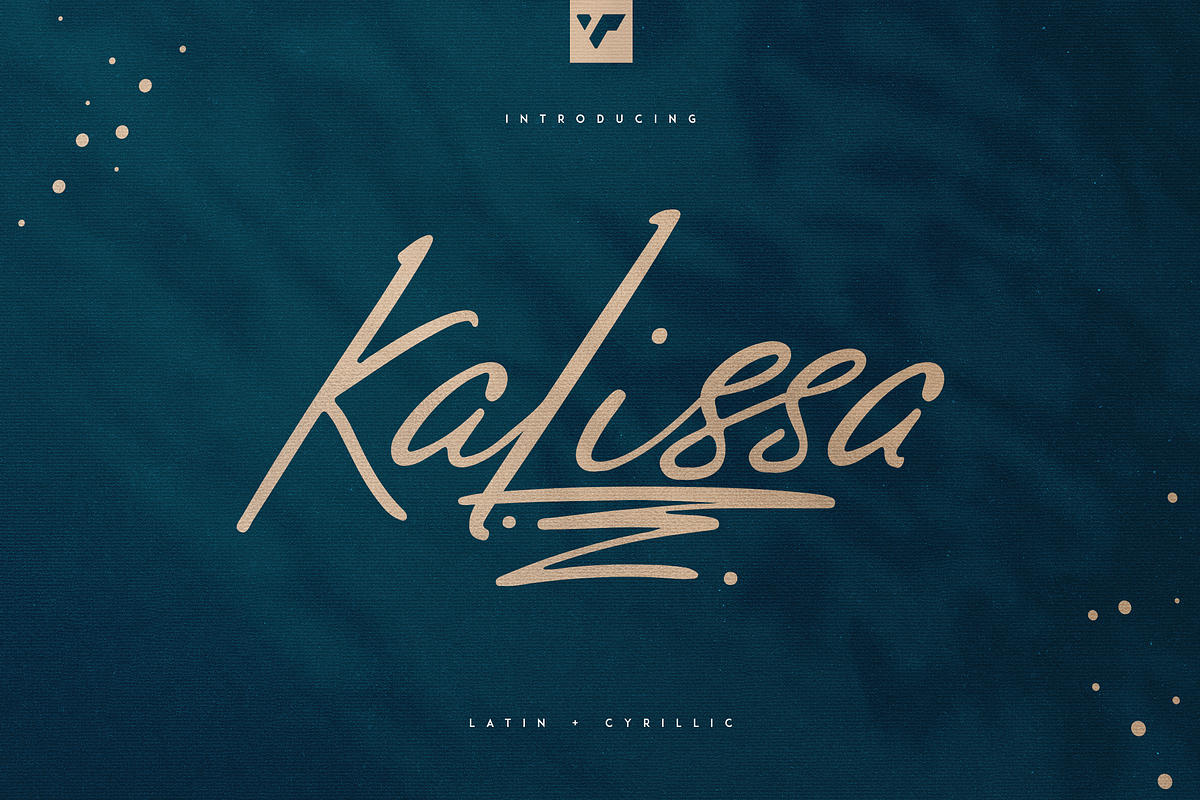
Elegant and expressive, Kalissa Script - Latin and Cyrillic Font Free Download is a beautifully handcrafted typeface that supports both Latin and Cyrillic alphabets, making it perfect for global design projects. With its flowing letterforms and graceful curves, this script font is ideal for wedding stationery, branding, product packaging, and social media graphics.
Kalissa brings a romantic, artistic feel while remaining easy to read. Whether you're creating a personal logo or an international marketing piece, this font bridges elegance with practicality. It’s a great choice for designers who need a sophisticated script font that also offers multilingual support.